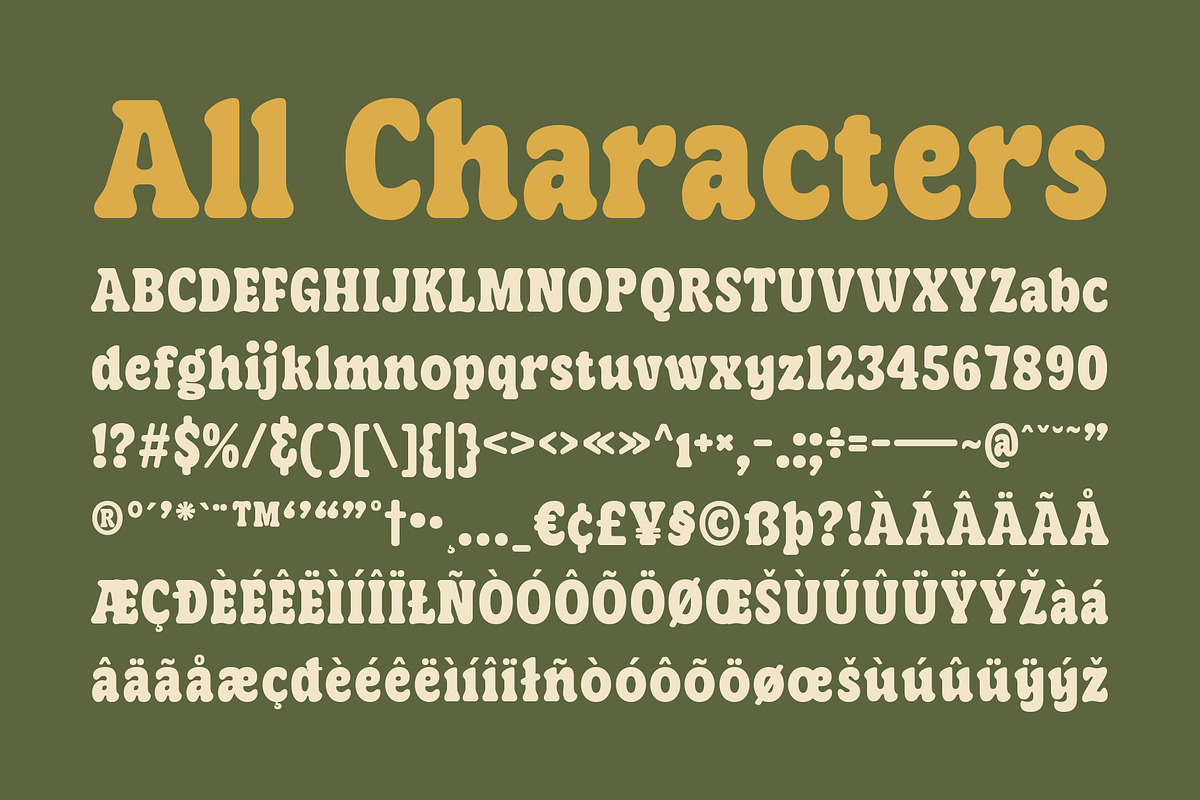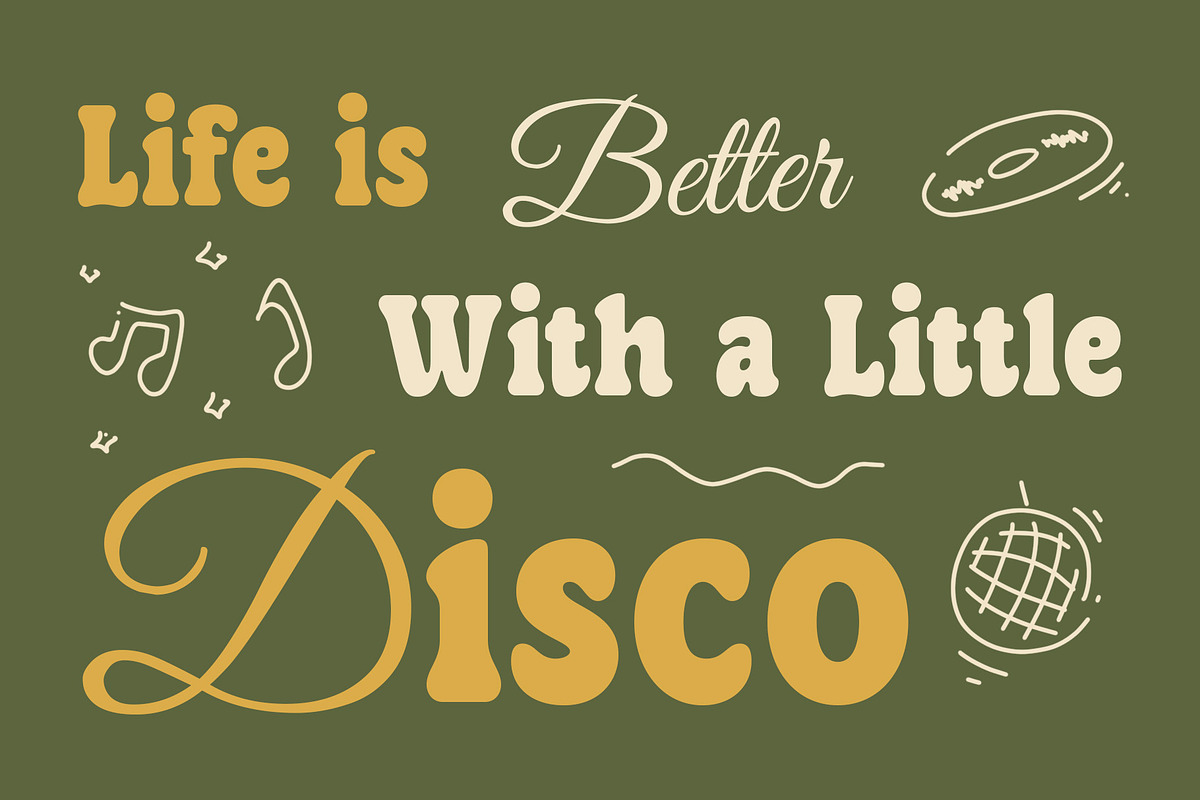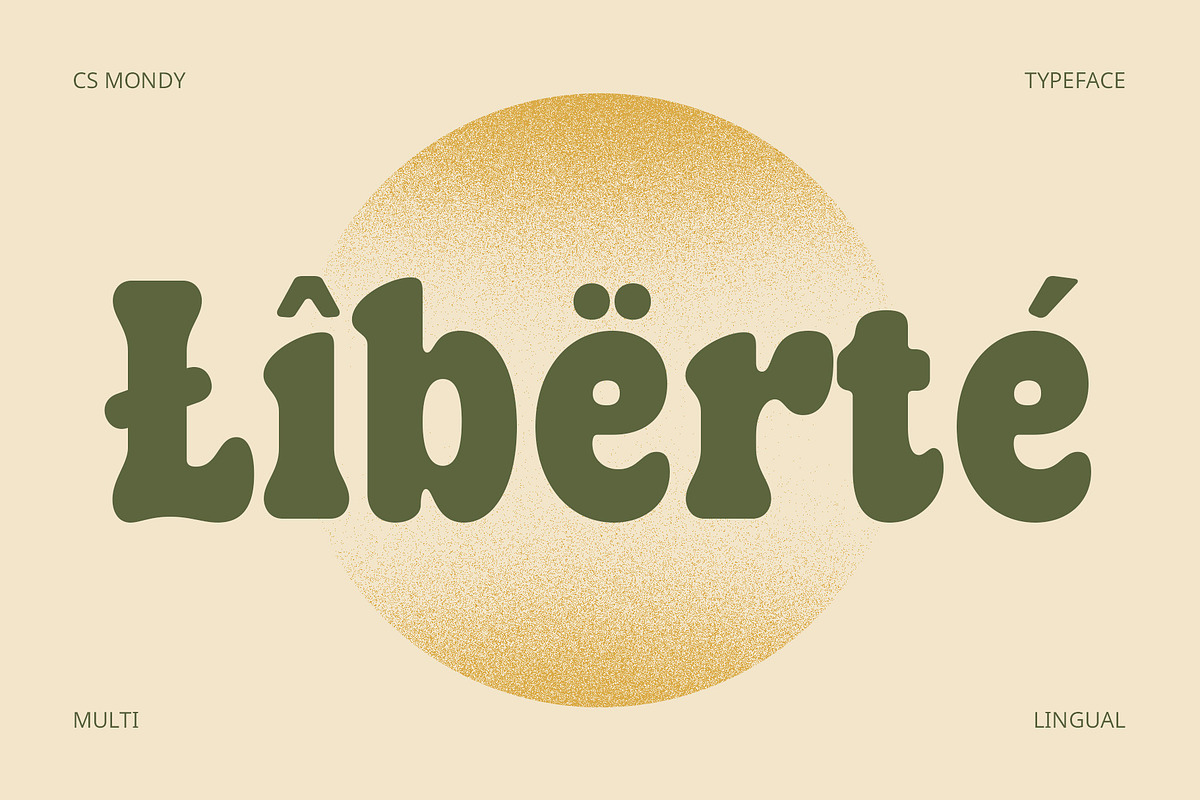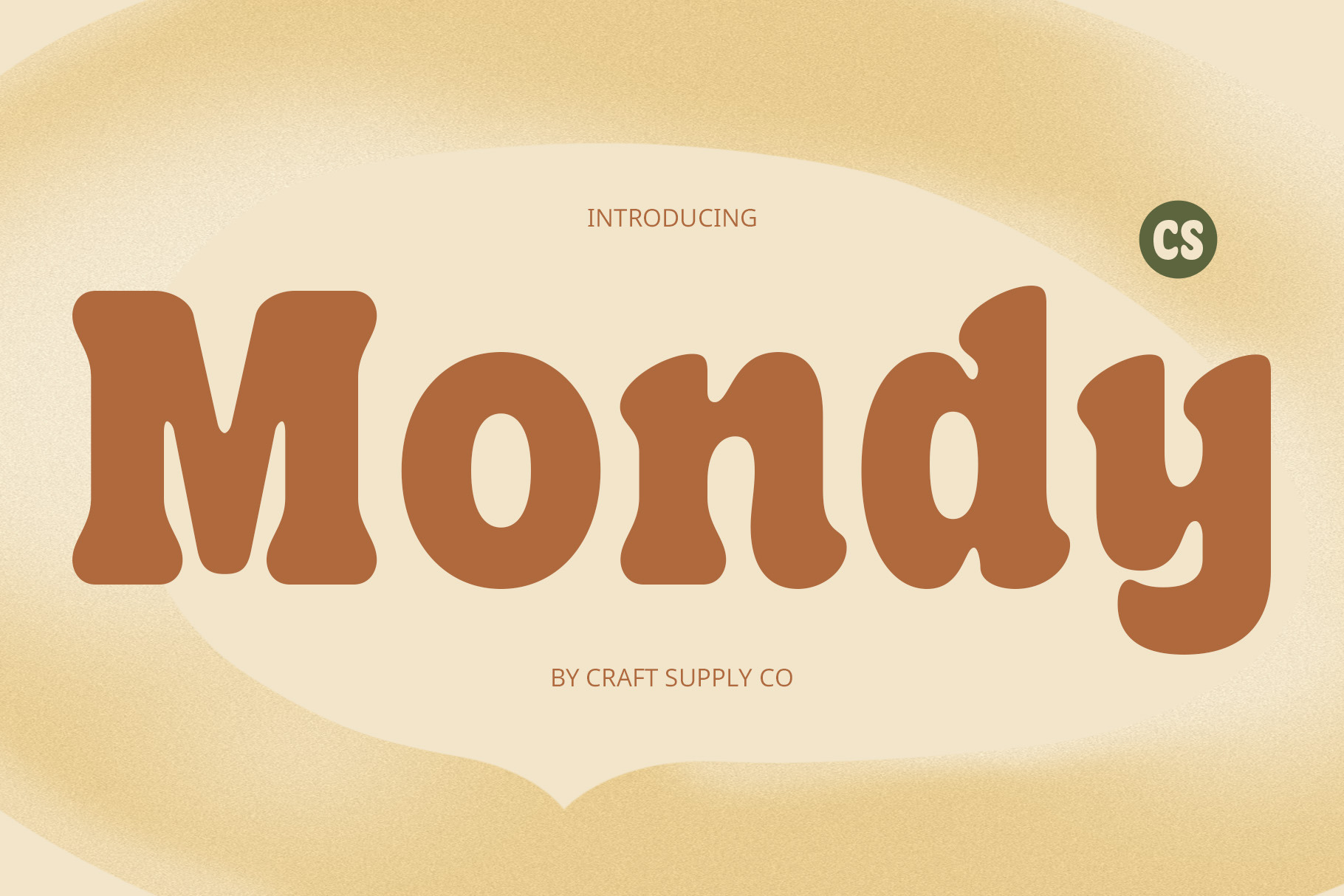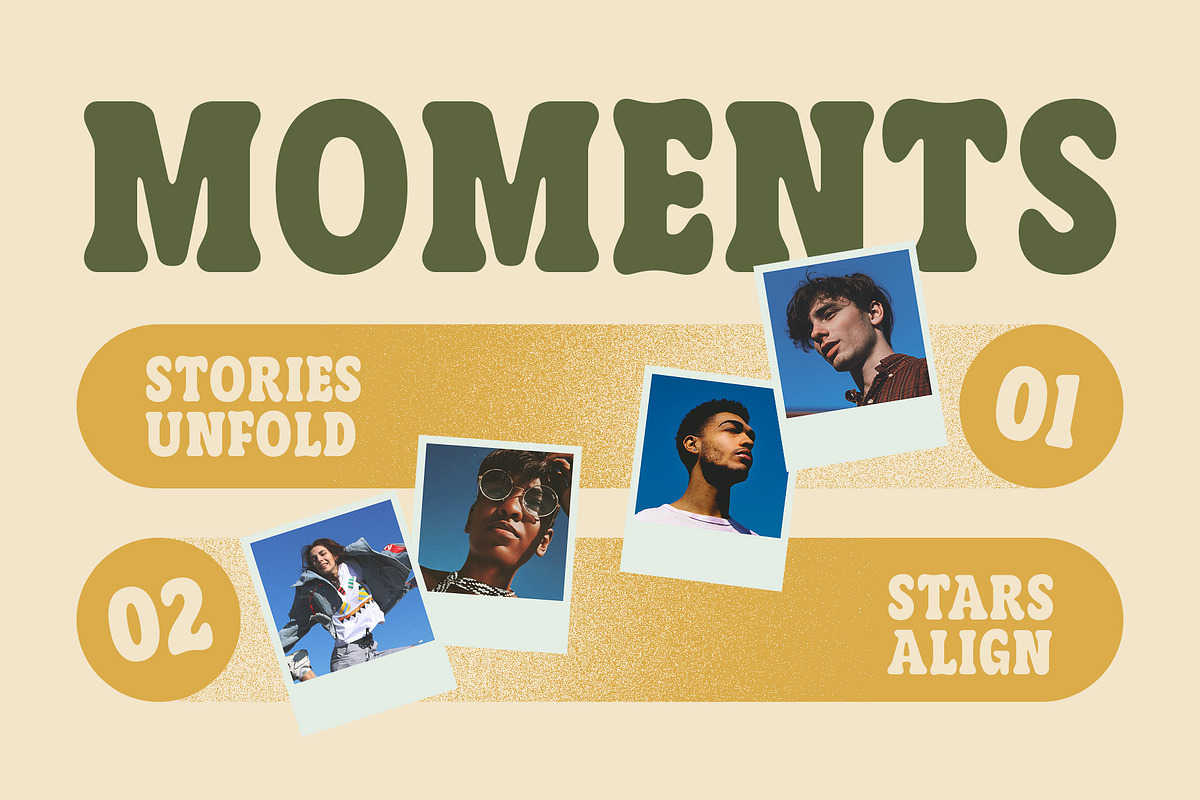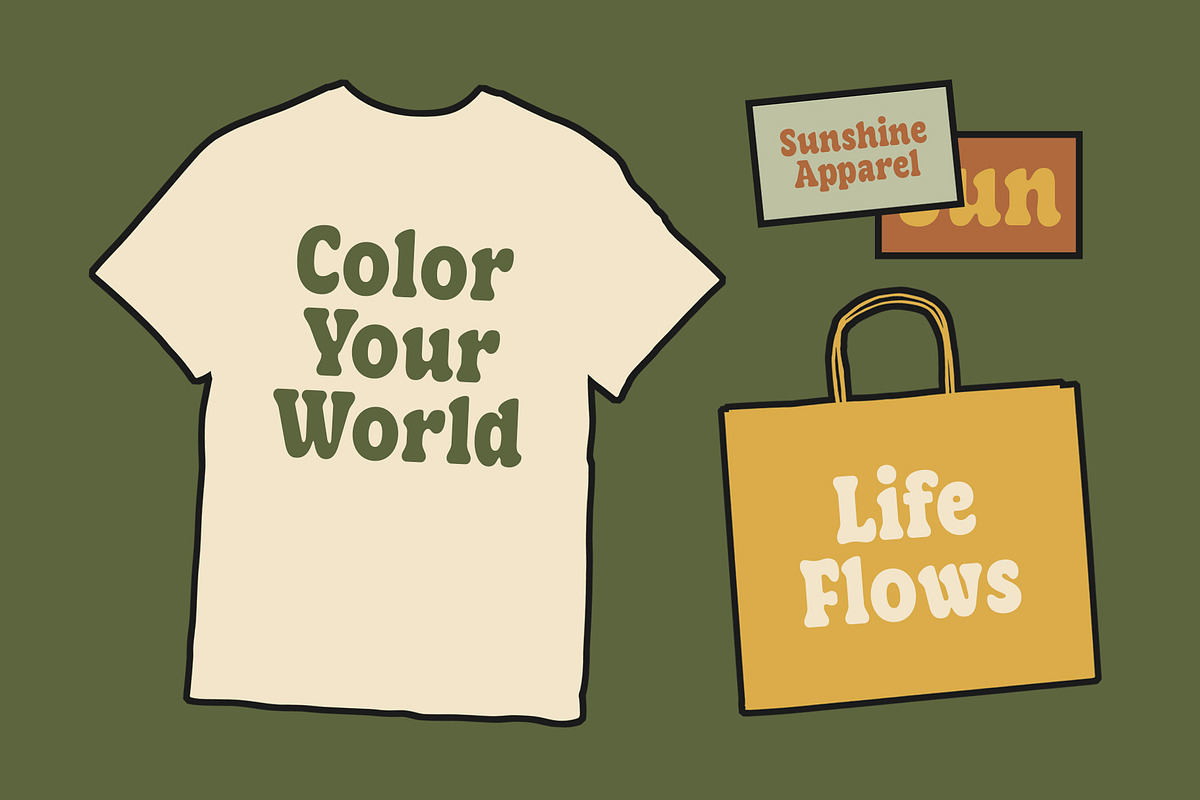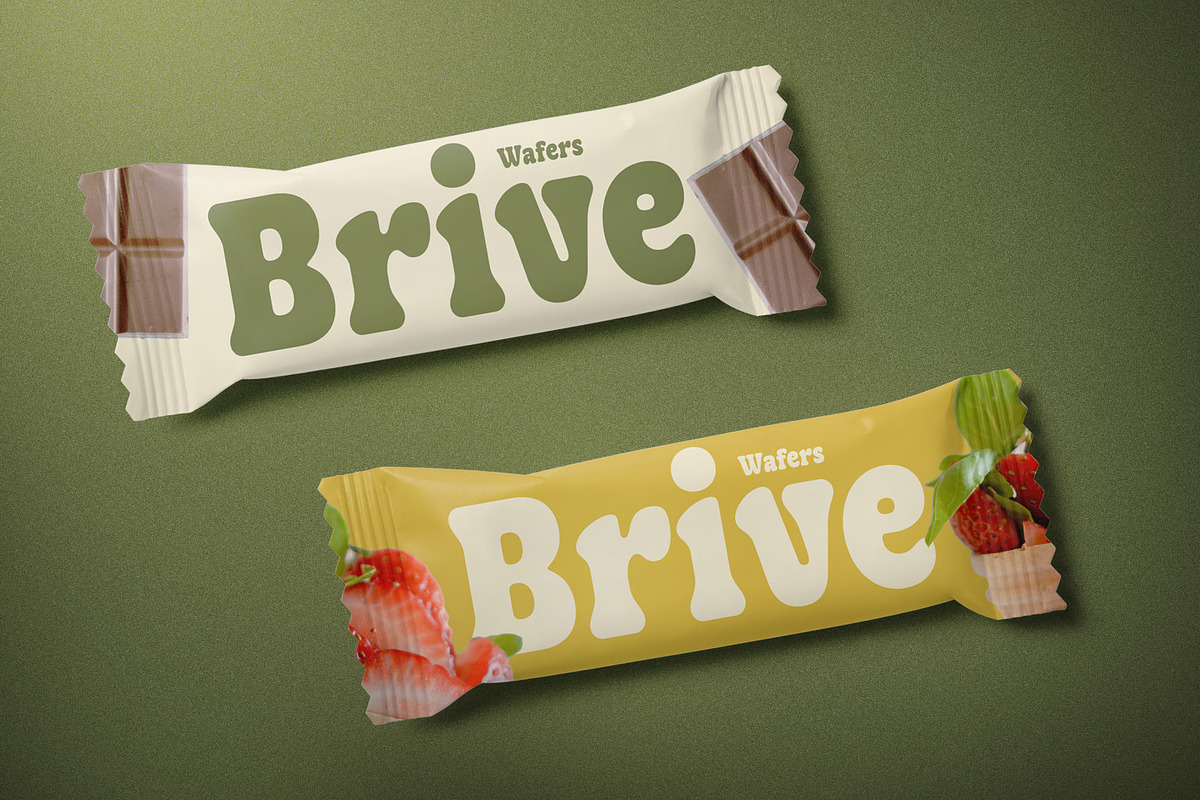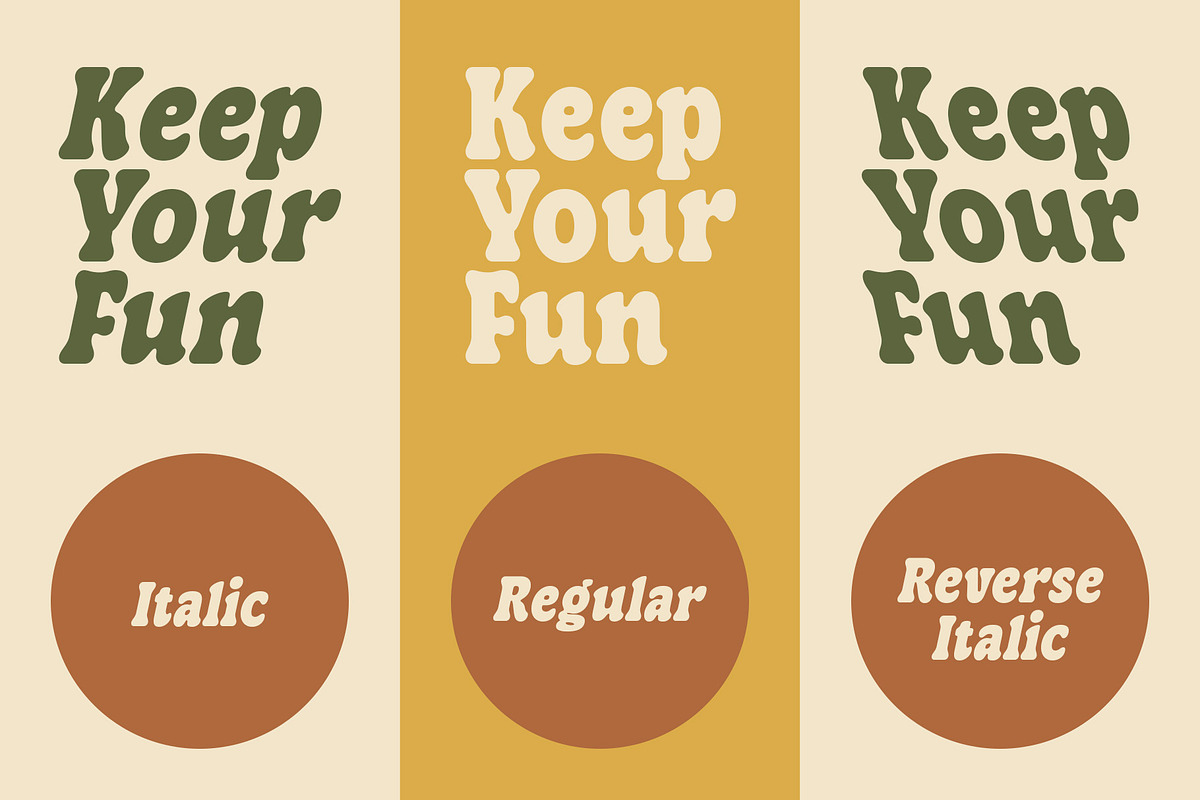
CS Mondy – Retro Font
CS Mondy – Retro Font: A Bold and Playful 90s Throwback
Bold Serif with Rounded Edges CS Mondy is a bold serif font that perfectly captures the vibrant energy of the 90s. Its thick, strong letterforms combined with rounded corners create a unique balance between strength and softness. The rounded edges add a touch of warmth and friendliness, making this font both approachable and eye-catching. With its retro charm, CS Mondy brings a nostalgic feel to any design, evoking memories of the colorful, dynamic spirit of the 90s.
Nostalgic 90s Vibes Designed to bring back the essence of the 90s, CS Mondy channels the boldness and playfulness of the era. The thick strokes and round edges create a visual that is both striking and welcoming. Perfect for projects aiming to tap into the cheerful, fun-loving energy of the 90s, this font effortlessly evokes nostalgia, making it an ideal choice for any design that seeks to celebrate the past while bringing a modern flair to the present.
Perfect for Youthful Branding and Retro Designs CS Mondy is the perfect font for youthful branding, posters, advertisements, and any project that wants to convey a retro yet fresh feeling. Whether you’re promoting a nostalgic event, designing a vibrant brand identity, or creating an eye-catching poster, this font will stand out with its dynamic and playful vibe.